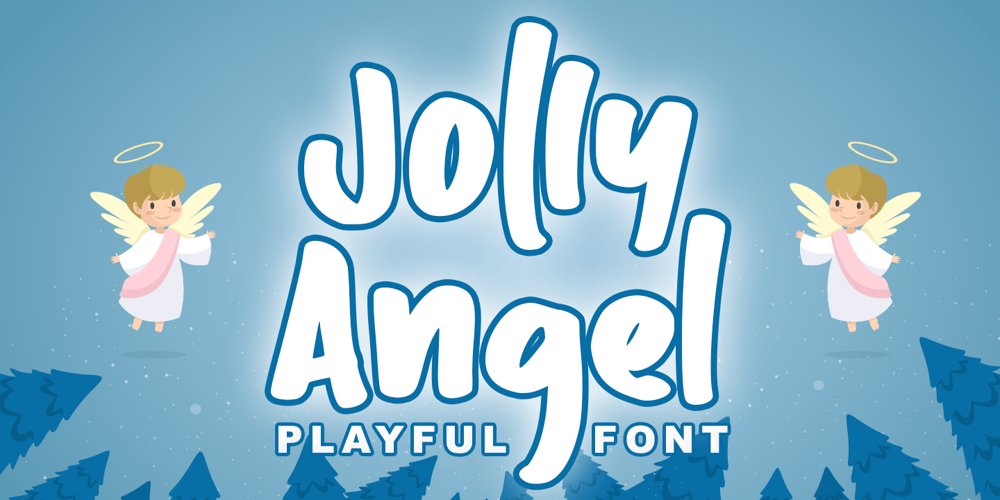
Jolly Angel Font Family was designed by Stefani Tri Rosa Setiati Christiana and published by Stefani Letter. Jolly Angel contains 2 styles and family package options. Jolly Angel is a cute and quirky display font. It embodies playfulness and authenticity and is the perfect choice for any children’s activity, Christmas, thanksgiving, poster, logo, packaging, or school project. Fall in love with its incredibly adaptable style and use it to create amazing designs! Add this beautiful display font to each of your creative ideas and notice how it makes them stand out!